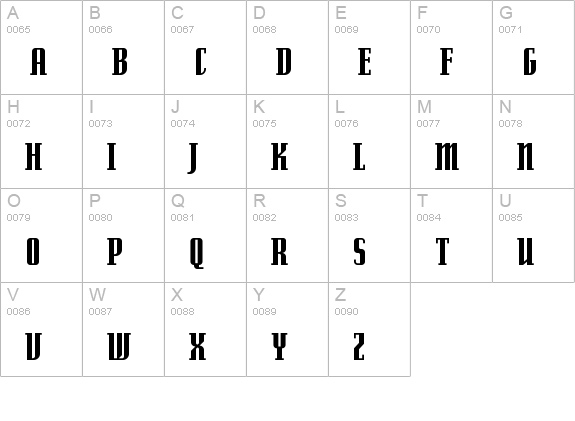
Introducing SenatorUltra font, a bold and impactful typeface that exudes power and authority. With its strong and commanding letterforms, this font is perfect for making a statement and leaving a lasting impression. SenatorUltra font is meticulously crafted to convey a sense of strength and confidence. Each letter is meticulously designed to be bold and distinct, ensuring maximum impact in any design or branding project. Whether you're creating a logo, a headline, or a poster, this font is sure to captivate your audience and make your message stand out. What sets SenatorUltra font apart is its versatility. It can be used in a variety of contexts, from political campaigns to corporate branding. Its bold and impactful nature makes it ideal for conveying messages of strength, leadership, and determination. And the best part? SenatorUltra font is freely available to download at FontsMarket.com. That means you can get your hands on this powerful typeface without spending a dime. It's a font that empowers you to create stunning designs without breaking the bank. So why wait? Download SenatorUltra font today and unleash its power in your designs. With its bold and commanding presence, this font is sure to make a lasting impression and elevate your design projects to new heights. Don't miss out on this incredible opportunity to access a high-quality font for free. Get SenatorUltra font now and let your creativity soar!